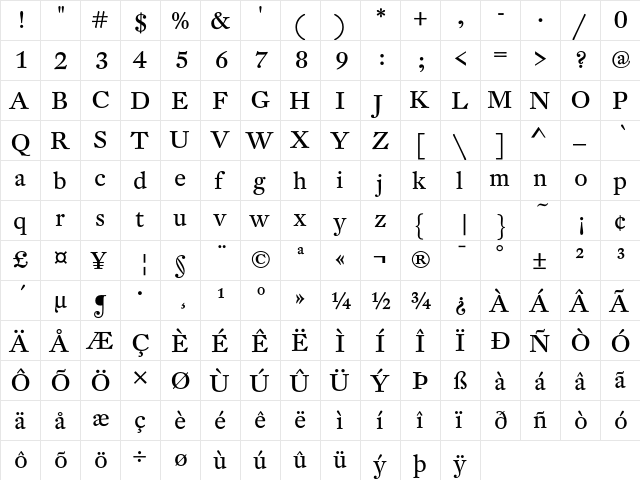
DTLFleischmannT Regular
Design Context for DTLFleischmannT Typeface
DTLFleischmannT takes a measured approach to typography — its balanced proportions and neutral character make it a reliable workhorse for both digital and print work.